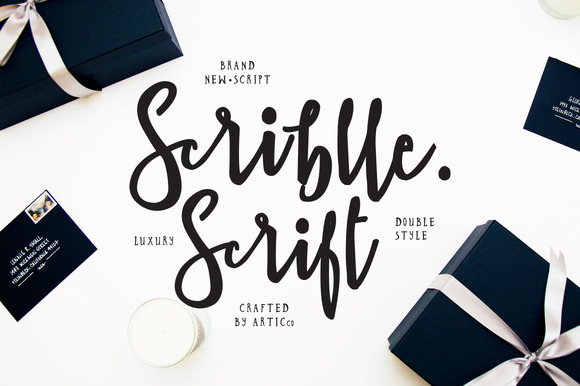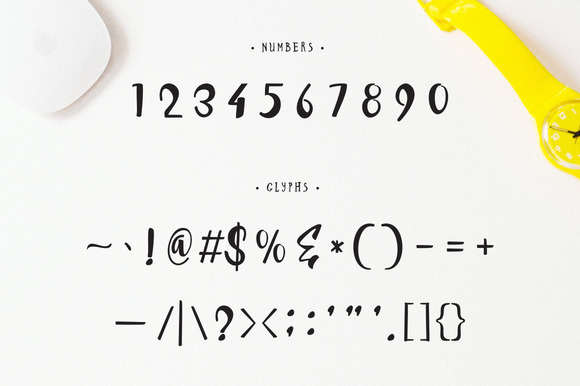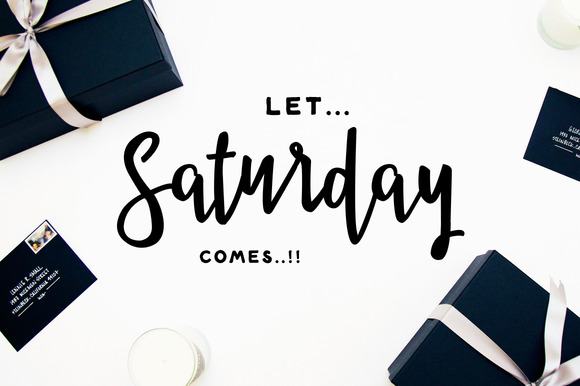
HomeScript FontsScriblle Font Script Fonts Scriblle Font FacebookXPinterestWhatsApp Scriblle Font Poster 2 Scriblle Font Poster 3 Scriblle Font Poster 4 About Scriblle Font Scriblle is a playful handlettered script font. DOWNLOAD NOW People also explored Apenzell Font Zinekiss Font Reach Dream Font Blueberry Font Royal Bavarian Queen Font Shadow Brush Font Bisqootte Font Smoothie Font 362 0 TagsScriblle Font Previous articleThe Airlines FontNext articleLe Paris Font LEAVE A REPLY Cancel reply Comment: Please enter your comment! Name:* Please enter your name here Email:* You have entered an incorrect email address! Please enter your email address here Website: Save my name, email, and website in this browser for the next time I comment. Personal Use Free Charletto Personal Use Free Read more about this font Aline Personal Use Free Read more about this font Peristiwa Font Personal Use Free Read more about this font Hatchill Personal Use Free Read more about this font BLOG Best Fonts for T-Shirt Design – Top 2025 Picks In 2025, t-shirt design has become more than just fashion—it's a form of self-expression. Whether you're... Fonts That Capture the Spirit of New York City How to Install and Use Fonts on Windows, macOS, and Web Projects Best Fonts for YouTube Videos: Make Your Thumbnails Stand Out